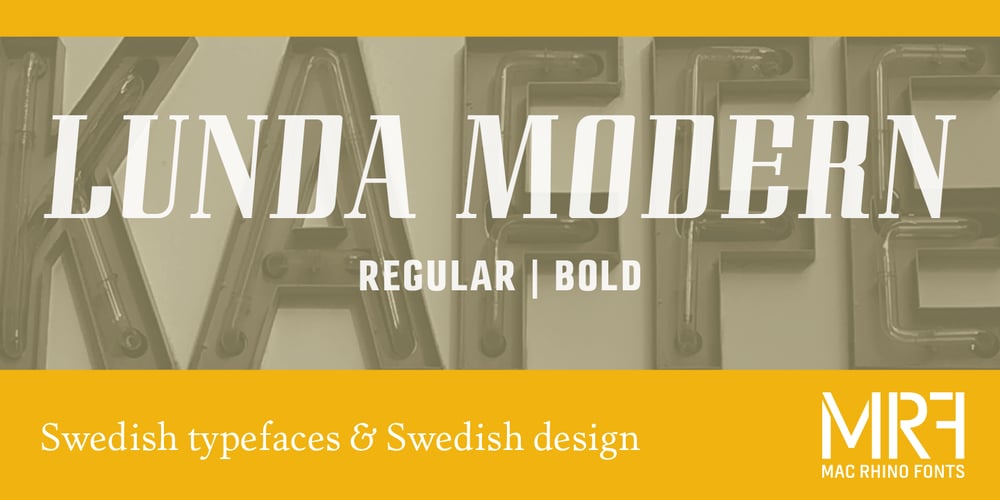
Lunda Modern Font Family was designed by Stefan Hattenbach and published by MAC Rhino Fonts. Lunda Modern contains 2 styles and family package options. Based on the typeface Lunda originally made by Karl Erik Forsberg, (1914–1998) in 1941. The name Lunda was a tribute to Berlingska Stilgjuteriet in Lund, a Swedish type foundry (1837–1980) which supported him from the start. The design is close to the original but some significant details have been changed. Several signs are designed from scratch. An additional bold weight has been added.